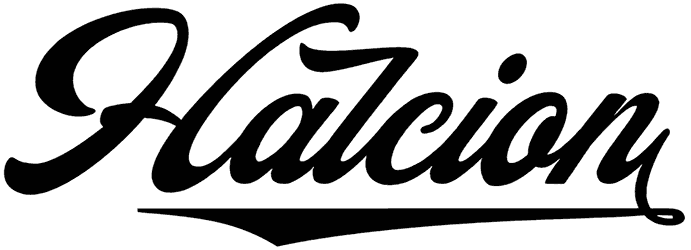
Halcion Font
Vintage styles always have their fans and never get outdated. This old-school font, called Halcion, with its classic, curvy manuscript style, can bring a similar vibe to your layout. Even though there is no offer for numbers and almost all punctuation marks, this script font can be a nice choice for various items, such as flyers, postcards, apparel, and more.
Two layered fonts.
Ligatures.
10 different swashes, for activated underline + number (_1)
Stylistic alternates in lowercase and uppercase.